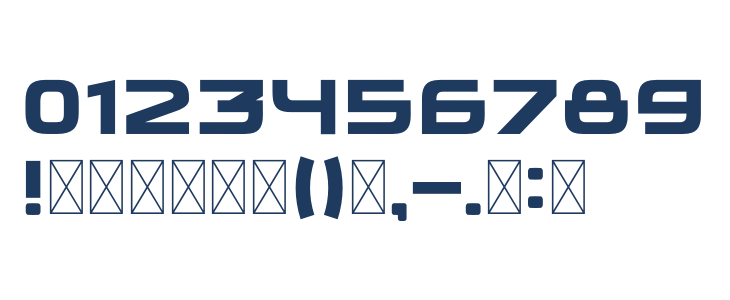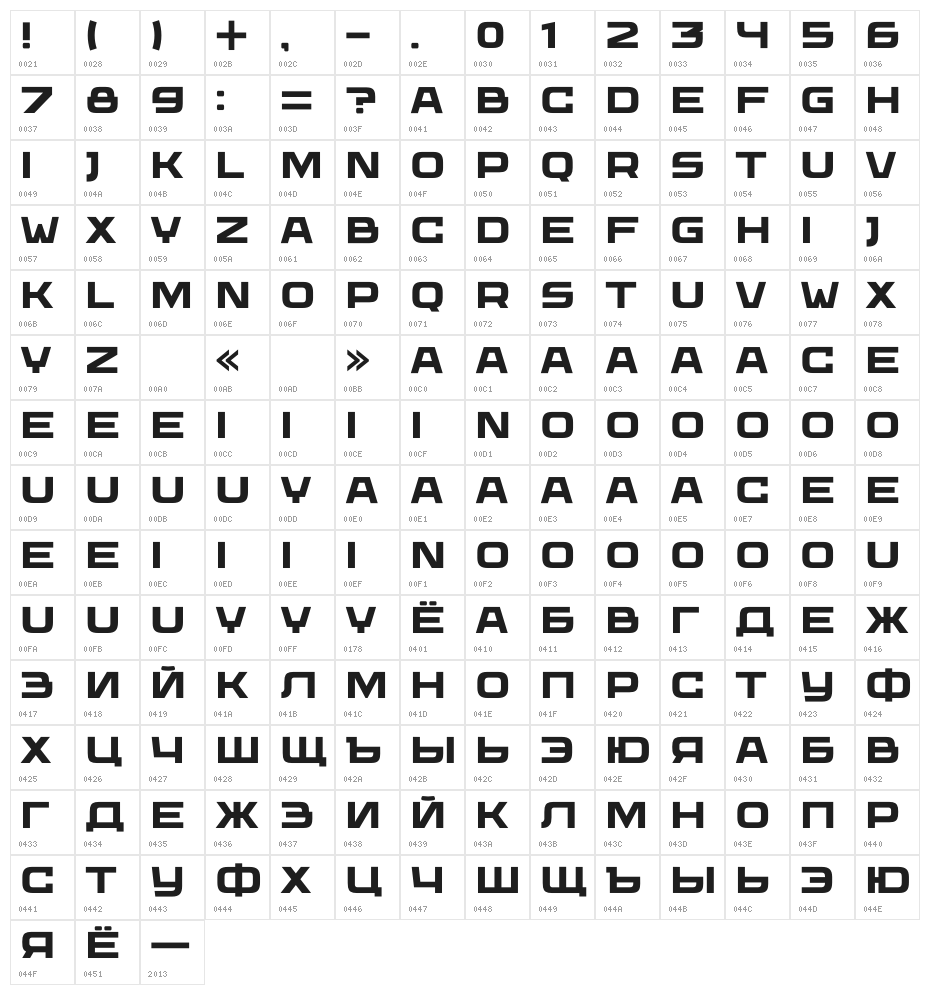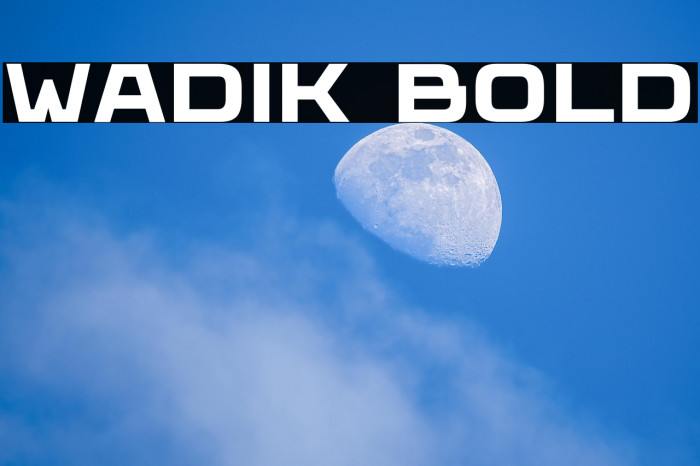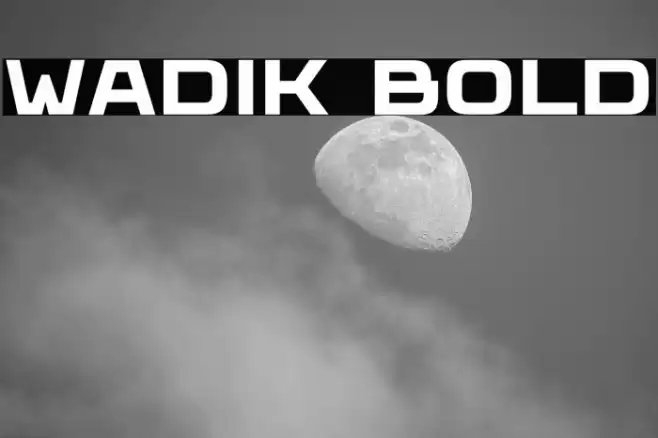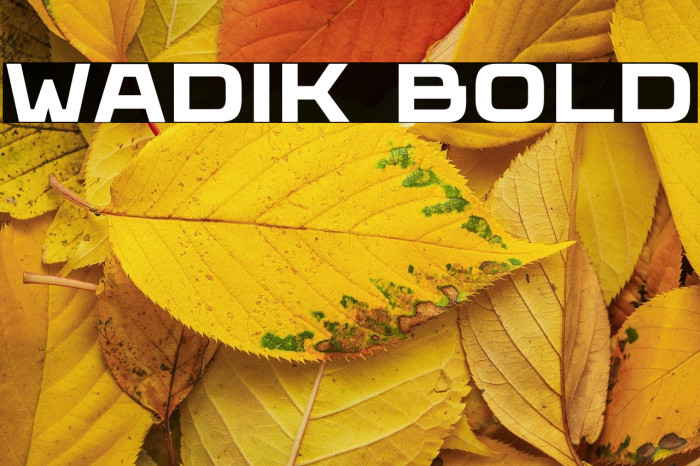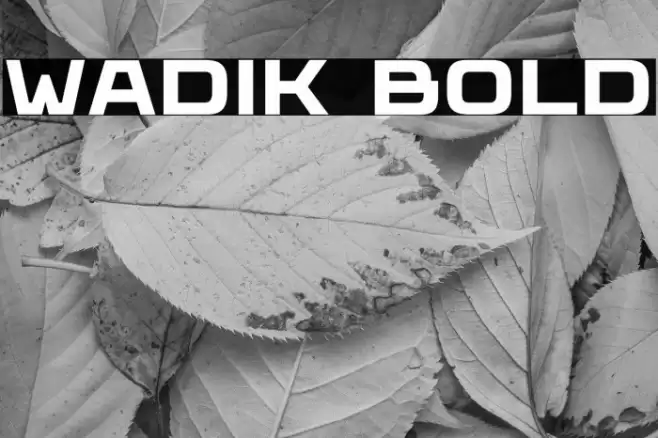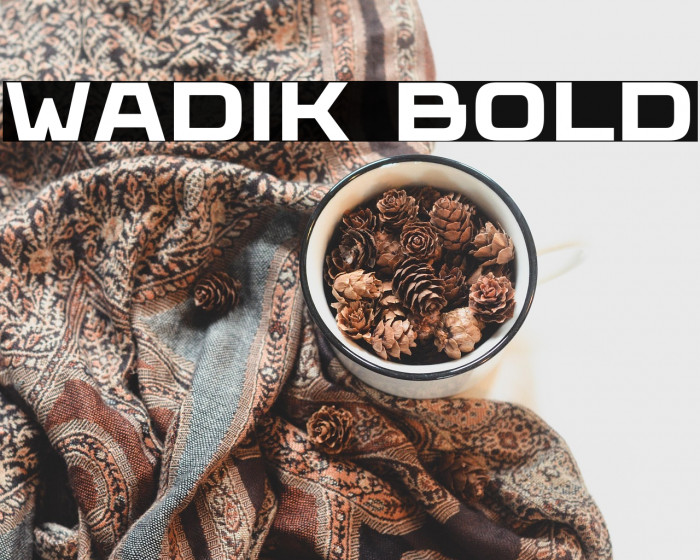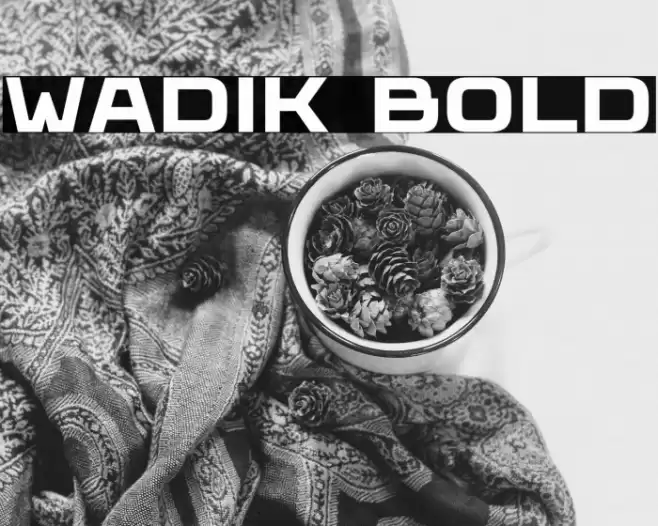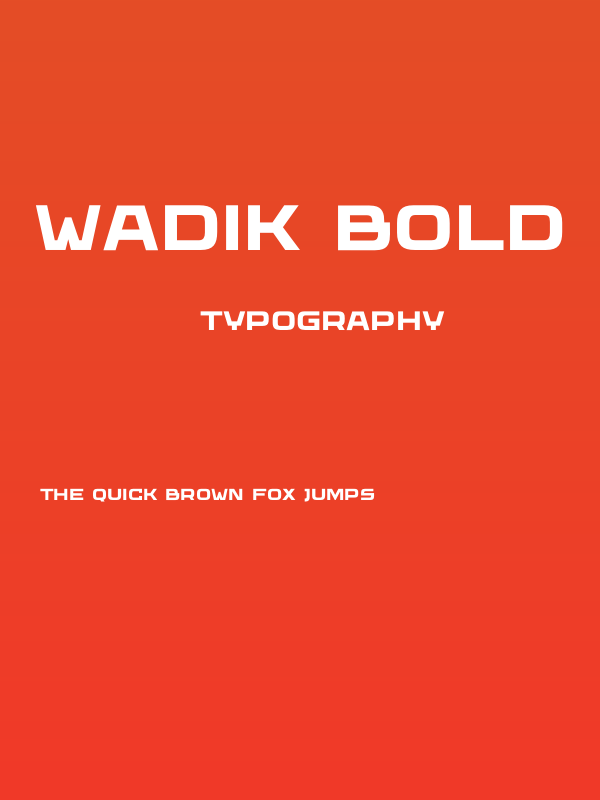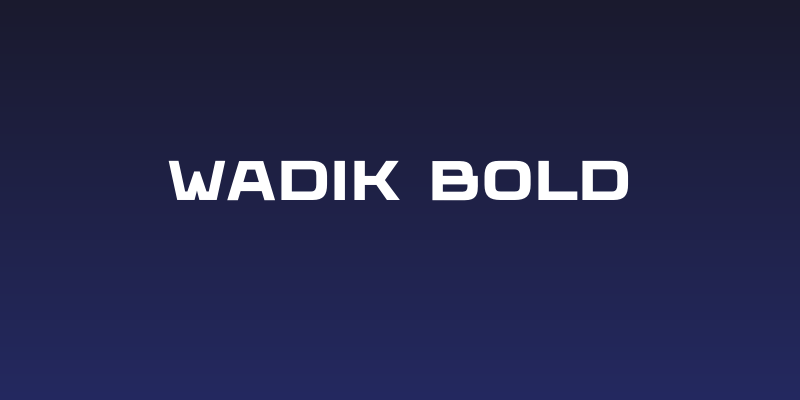
Wadik Bold Font
Wadik Bold Description
This font features a bold, geometric design with strong, angular lines and a modern aesthetic. The characters are uniformly thick, providing a sense of stability and strength. The uppercase letters are particularly striking, with a consistent height and width that creates a cohesive look. The numerals and special characters maintain the same boldness, ensuring readability and impact across different uses. The font's design is clean and uncluttered, making it suitable for a variety of applications where clarity and emphasis are needed.